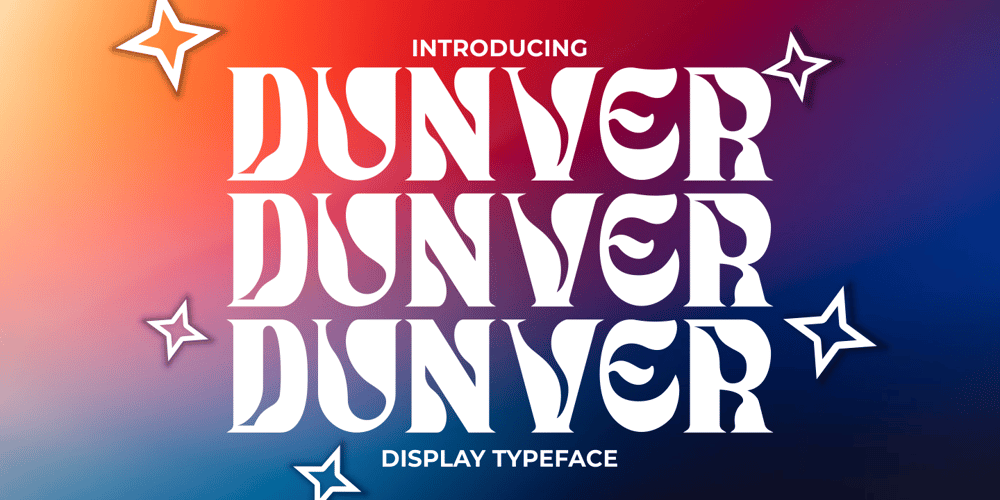
Dunver Font Family was designed by Putra Novembria Candra Kusuma and published by Putracetol. Dunver contains 2 styles and family package options. Introducing Dunver – a display typeface font inspired by vintage albums and posters from 1960s music bands. The classic typeface, combined with fun and groovy impressions, make Dunver a unique and distinct font choice. This font is perfect for any kind of display purpose, including album covers, posters, labels, t-shirts, apparel, signage, quotes, logos, greeting cards, and logotypes.Dunver is especially well-suited for music and party events. With its retro feel and bold design, it can help you create designs that perfectly capture the energy and excitement of the event. Whether you’re designing posters, flyers, or social media graphics for your next gig or music festival, Dunver can help you make an impact.The font comes with a range of features, including alternate characters divided into several OpenType features such as Swash, Stylistic Sets, Stylistic Alternates, Contextual Alternates, and Ligature. These OpenType features can be accessed using OpenType savvy programs such as Adobe Illustrator, Adobe InDesign, Adobe Photoshop CorelDRAW X version, and Microsoft Word.In the zip package, you will find Dunver in otf, ttf, and woff formats. It comes with uppercase and lowercase letters, opentype alternates and ligatures, numbers, punctuation, and symbols, as well as multilanguage support.Dunver is not just a font – it’s a versatile tool that can help you bring your creative vision to life.